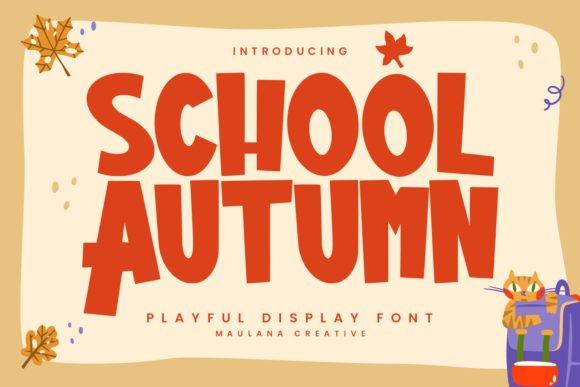
Grab Autumn School Font: A Playful Delight for Your Creative Designs!
Unleash the power of Autumn School Font - a captivating display font that's sure to add a dash of playfulness and personality to your designs. With its bold strokes and whimsical characters, this font is a feast for the eyes.
Step into a world of creativity with Autumn School Font, a versatile font family that's perfect for a wide range of projects. Create eye-catching logos that demand attention, or transform your social media posts into works of art. From captivating movie titles to enchanting book covers, this font will make your words shine.
Showcase your back-to-school projects with flair using Autumn School Font. Its playful spirit will ignite your imagination and make your projects stand out. It's the perfect font to add a touch of fun and uniqueness to your school notes, presentations, and assignments. Let your creativity soar and leave a lasting impression on your teachers and classmates.
Whether you're a seasoned designer or just starting out, Autumn School Font is the perfect choice for adding a touch of charm to your work. Its versatility and playful nature make it a must-have in any designer's toolkit. Download Autumn School Font today and let your imagination run wild!